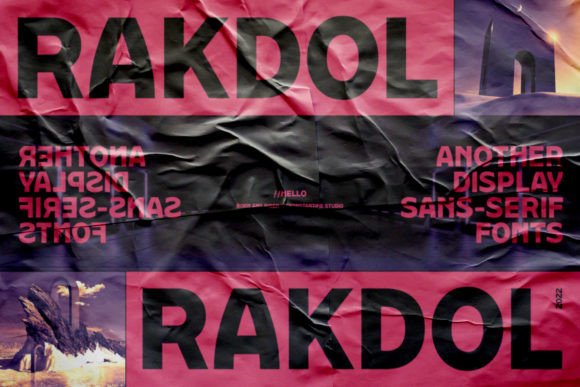
Get ready to game like never before with Rakdol Font, the ultimate font for gaming websites. Experience the adrenaline-pumping rush as you immerse yourself in a world of pixels and challenges like never before. Rakdol's bold and captivating characters will electrify your gaming website, leaving an unforgettable impression on every gamer who visits.
Unleash your creativity and let Rakdol's easy-to-use features take your gaming website to the next level. Its solid statement design will command attention and keep your visitors engaged from the moment they arrive. Whether you're creating captivating logos, designing dynamic posters, or crafting eye-catching branding materials, Rakdol is the perfect font to make your gaming website stand out from the crowd.
Transform your gaming website into a visual masterpiece with Rakdol's versatility. Seamlessly blend it into your web design, allowing the font's energy and charisma to shine through. From modern posters to sleek logos, Rakdol effortlessly adapts to a wide range of applications, ensuring your gaming website reflects your unique style and passion for gaming.
Immerse your visitors in an unforgettable gaming experience with Rakdol Font. Its bold and captivating characters will captivate their attention, while its easy-to-use features make it a breeze to create a website that's both stylish and functional. Join the ranks of successful gaming websites and elevate your online presence with Rakdol Font today.